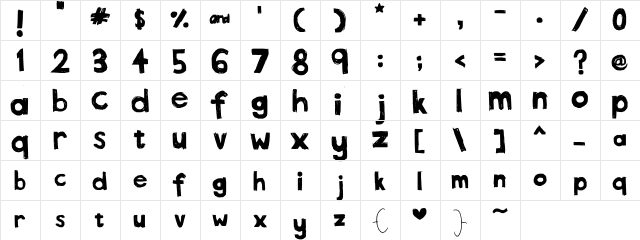
That's not what I meant... Regular
Design Context for That's not what I meant... Typeface
That's not what I meant... is a composed and adaptable typeface that performs quietly and consistently across a wide range of design contexts.
Pro Tip: Use That's not what I meant... in both headline and body roles to test its range before committing to a single application.